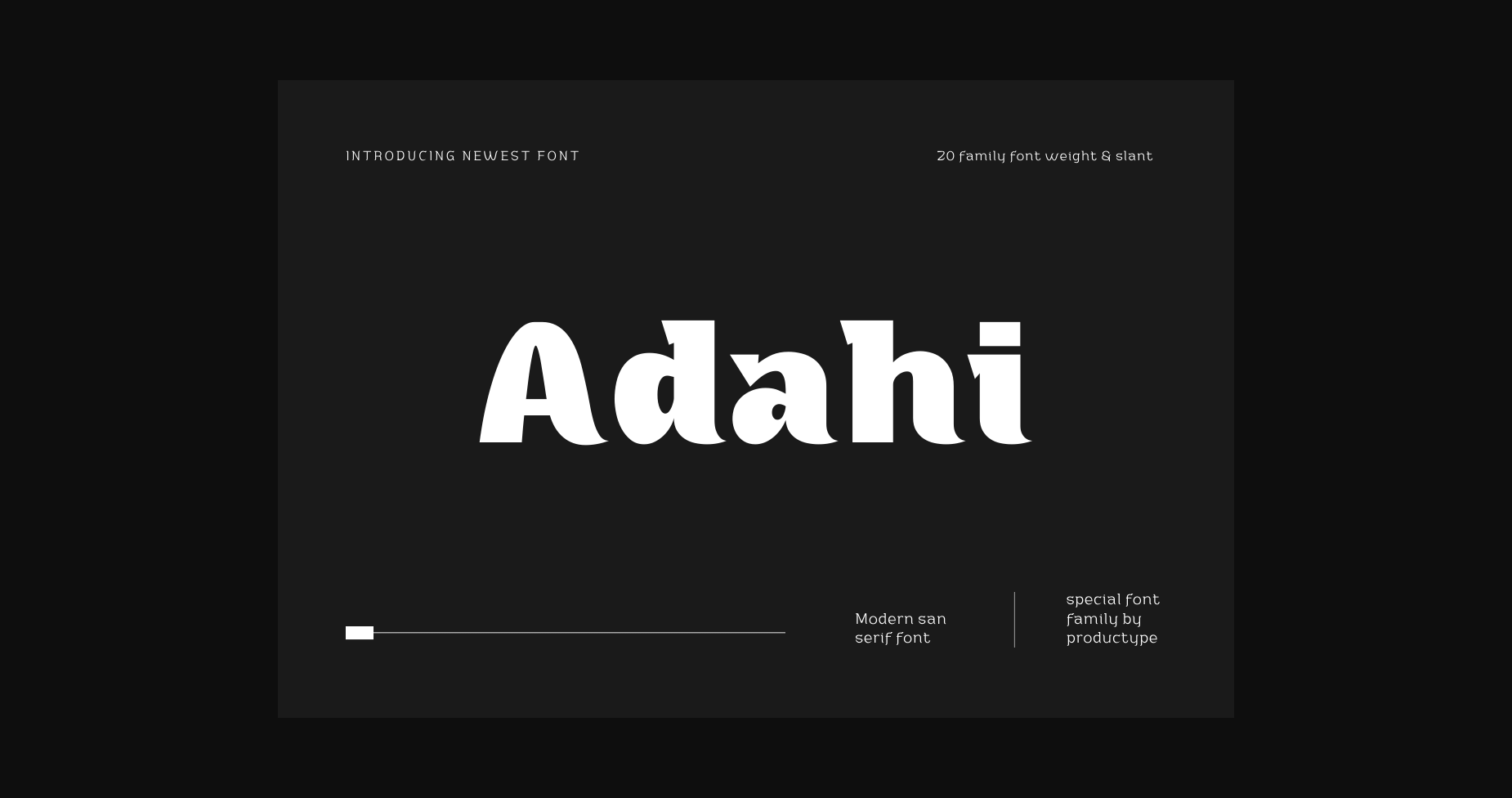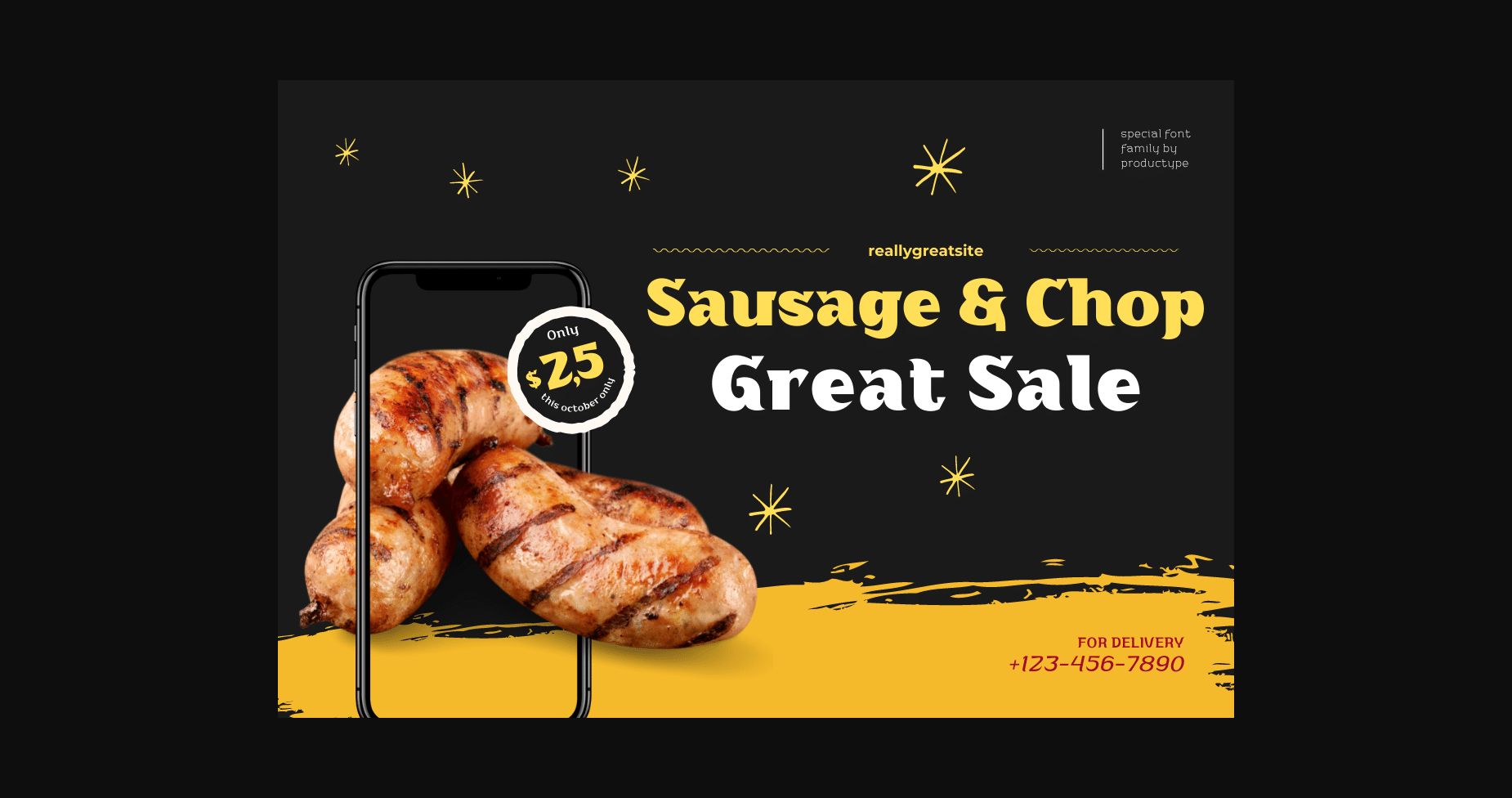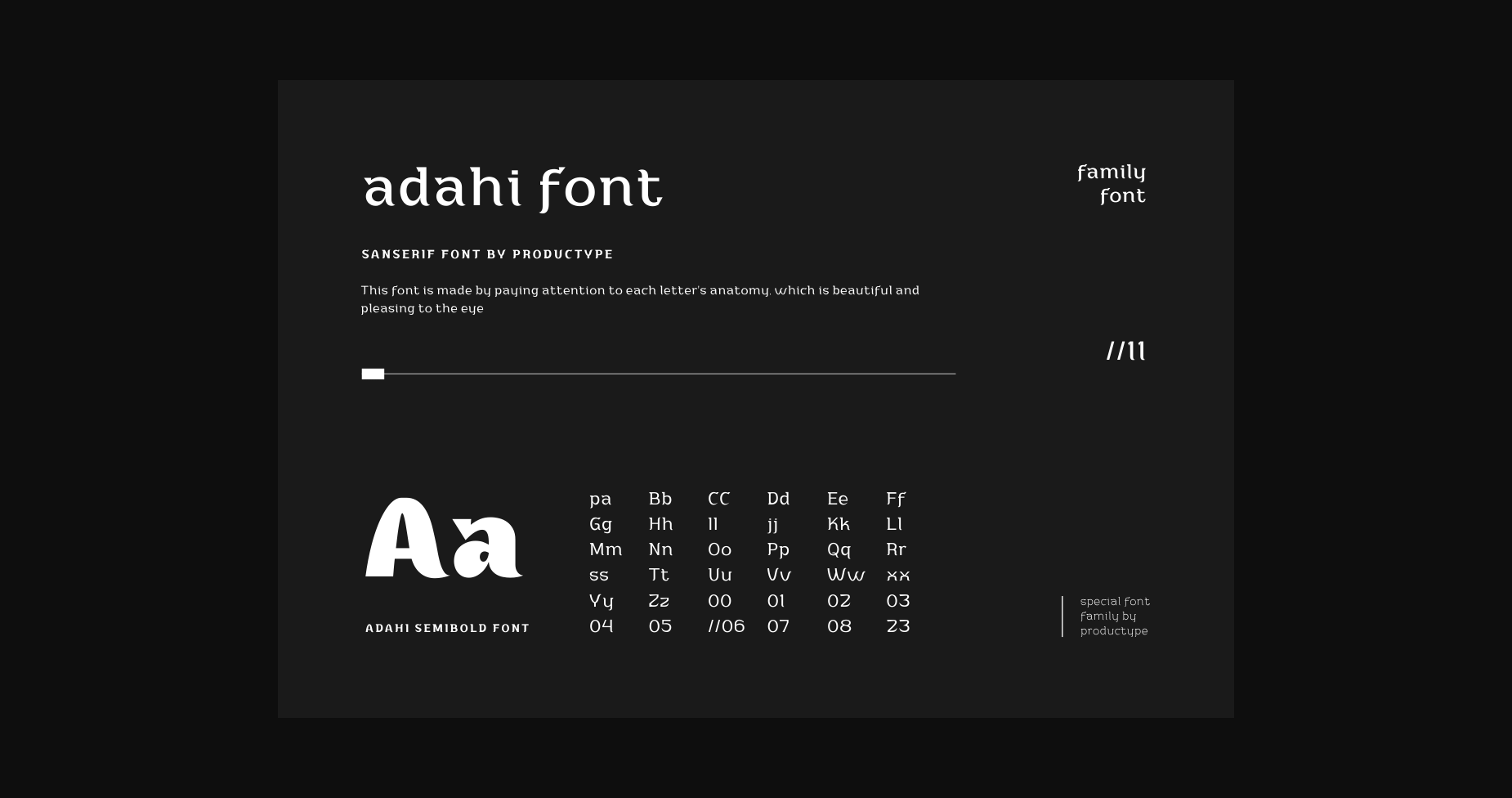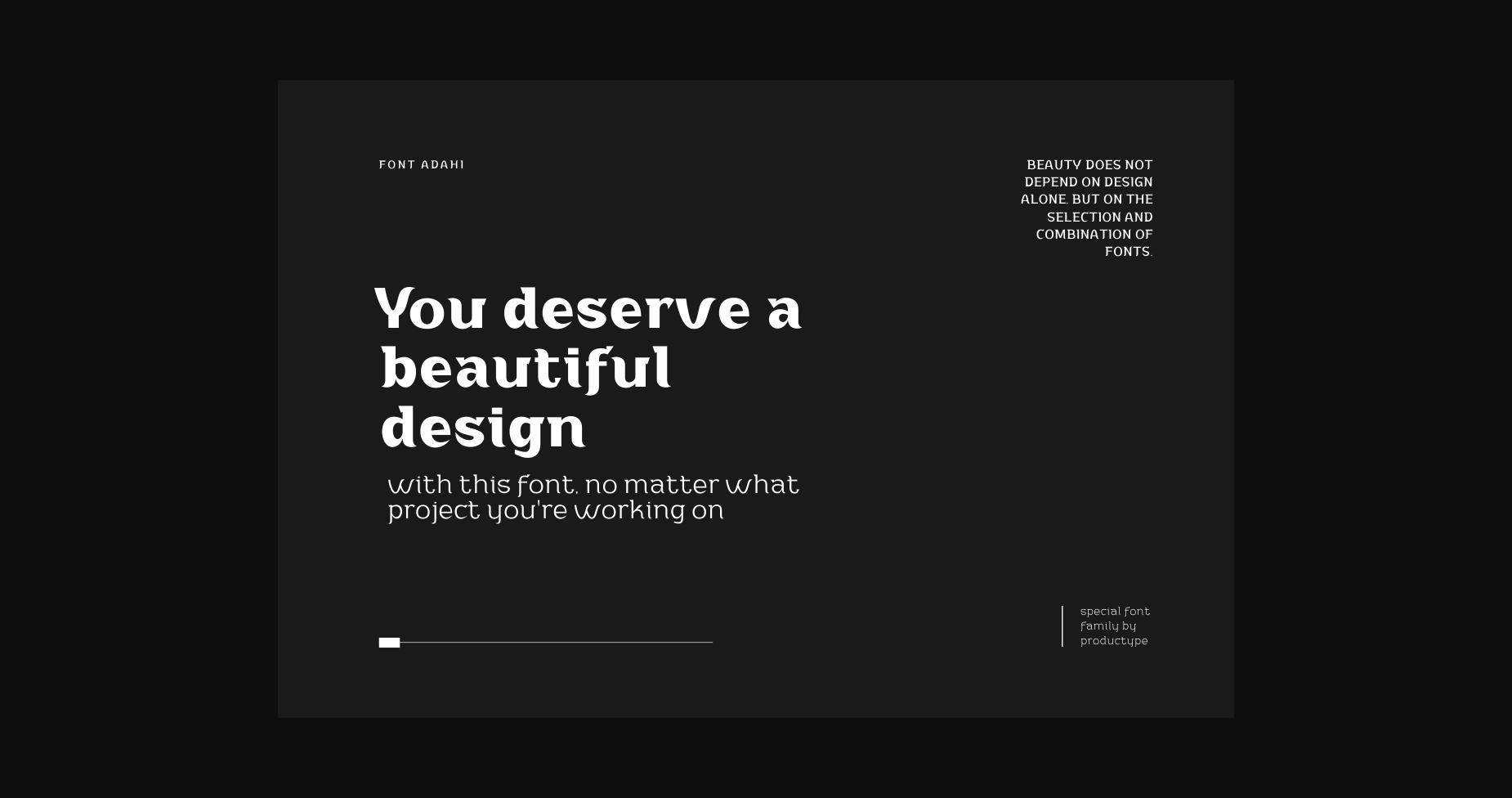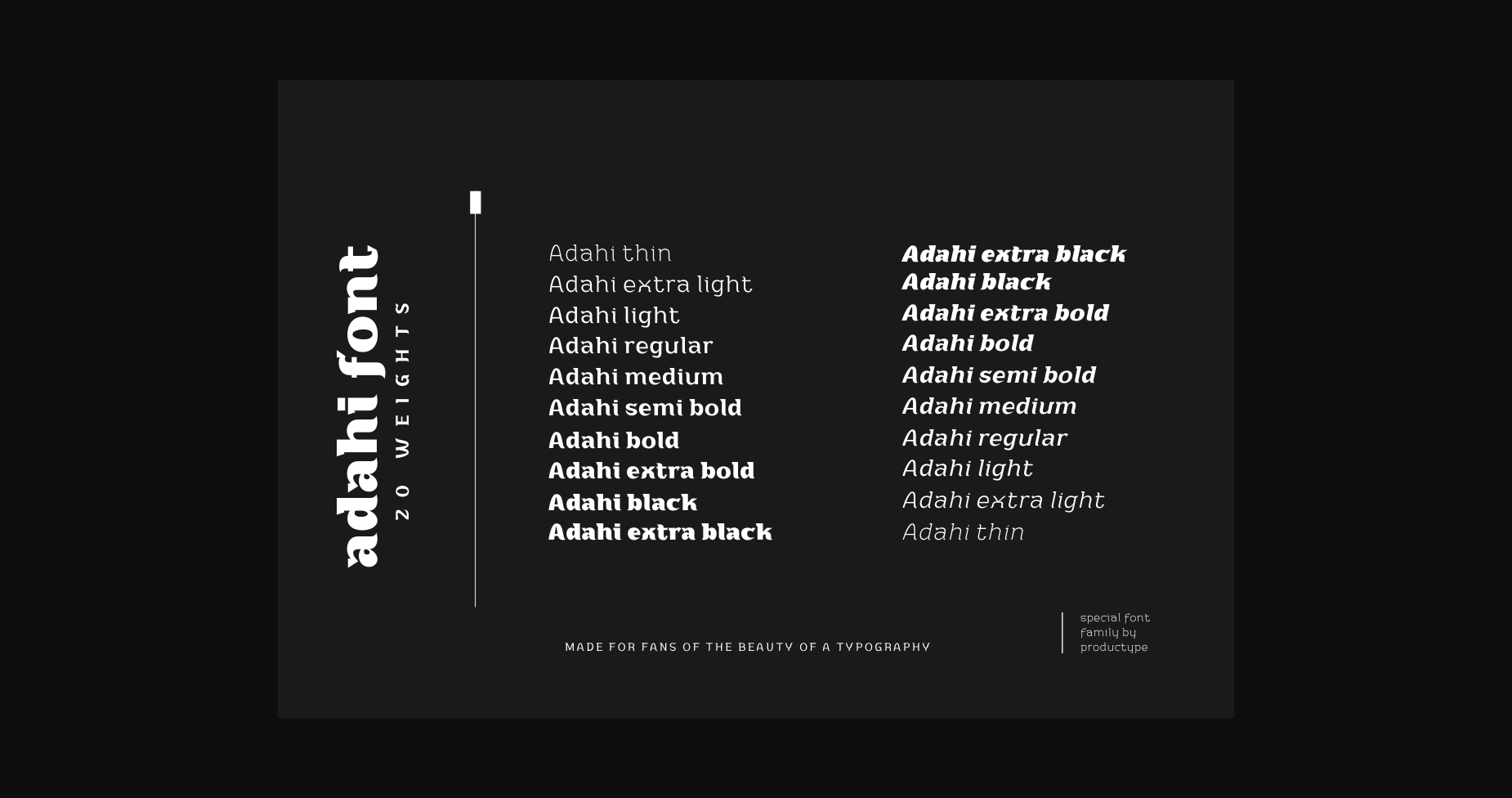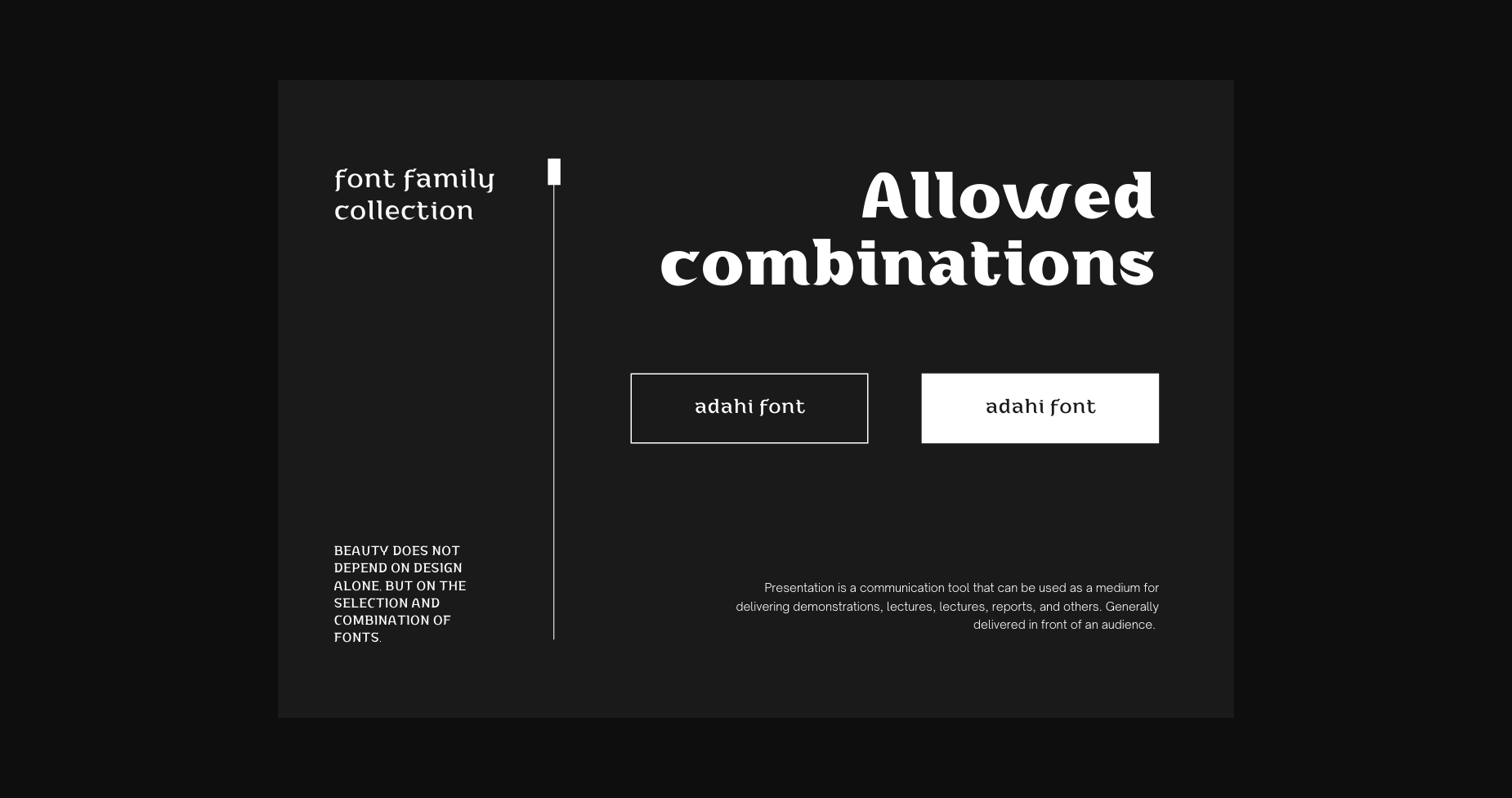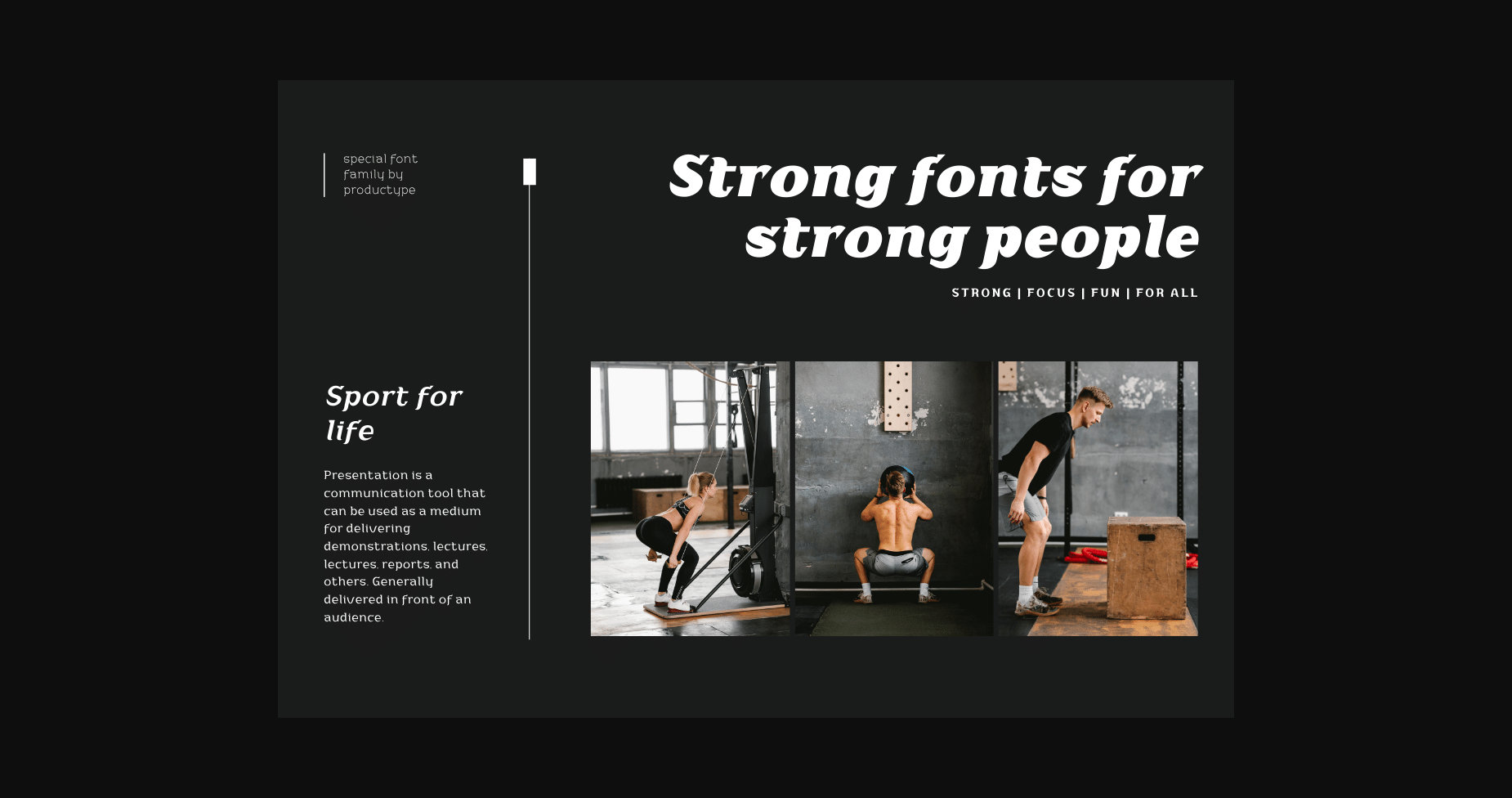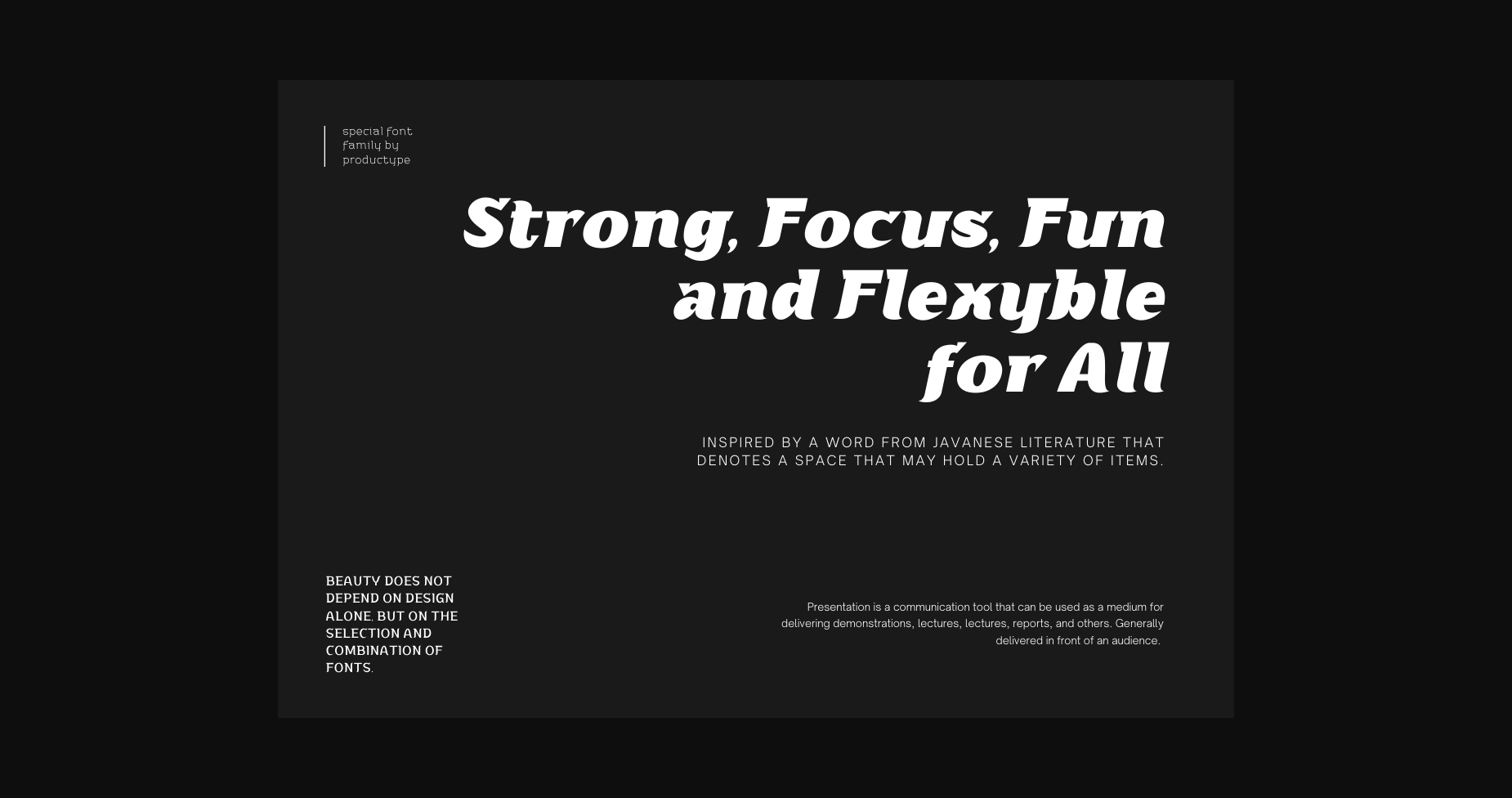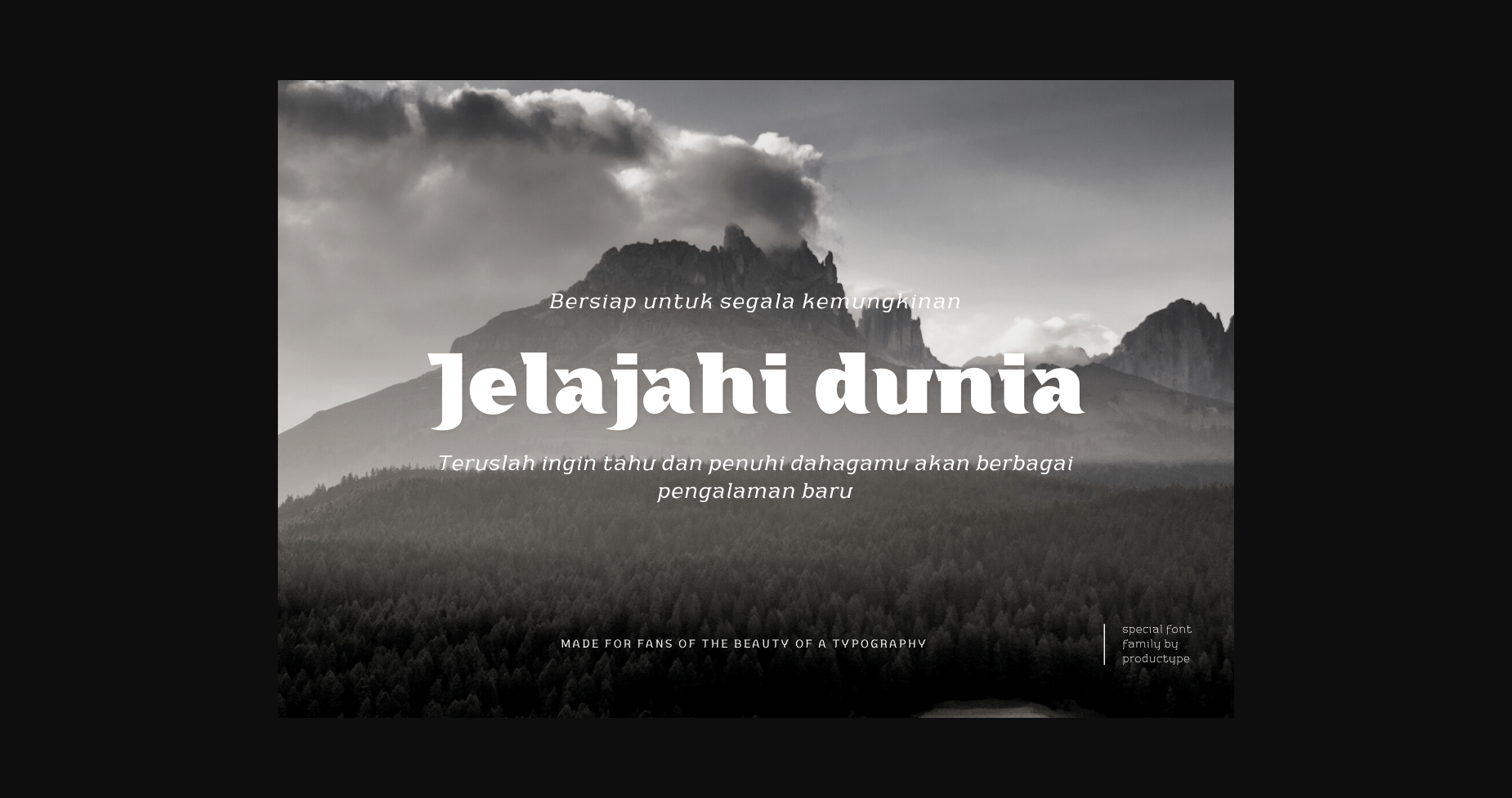
Adahi is a stylish and modern sans serif font. No matter the topic, this font will be an incredible asset to your fonts’ library, as it has the potential to elevate any creation.